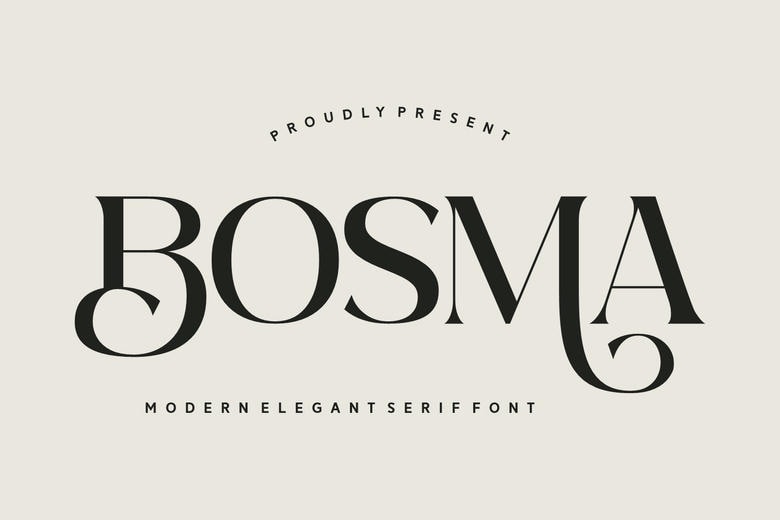
Bosma Font
Bosma is an elegant serif font that embodies sophistication and timeless beauty. With its refined curves, sharp serifs, and graceful proportions, Bosma is perfect for luxury branding, editorial layouts, and invitations. Its classic yet modern design ensures versatility and elegance in any creative project.
Bosma Serif Font